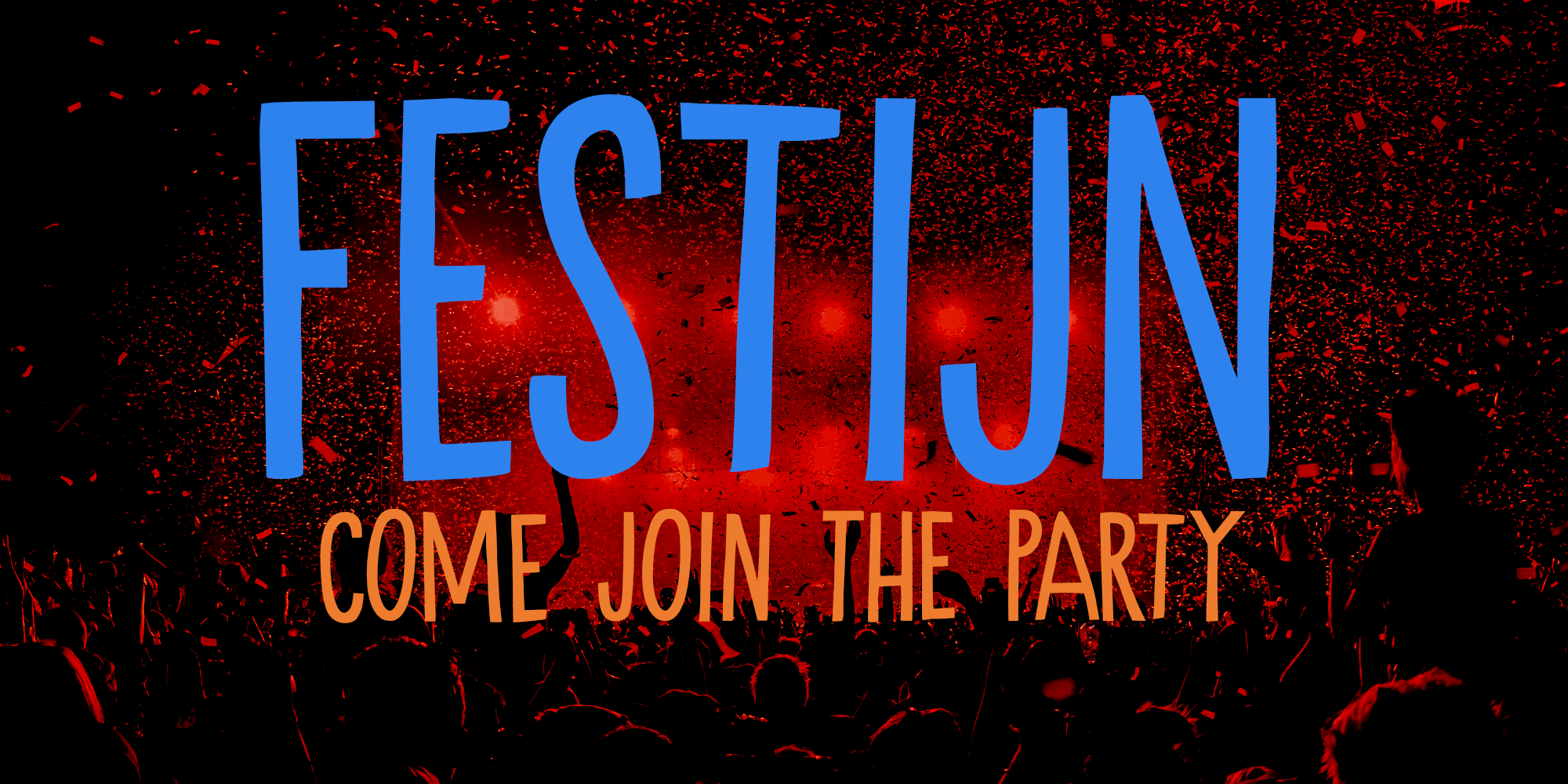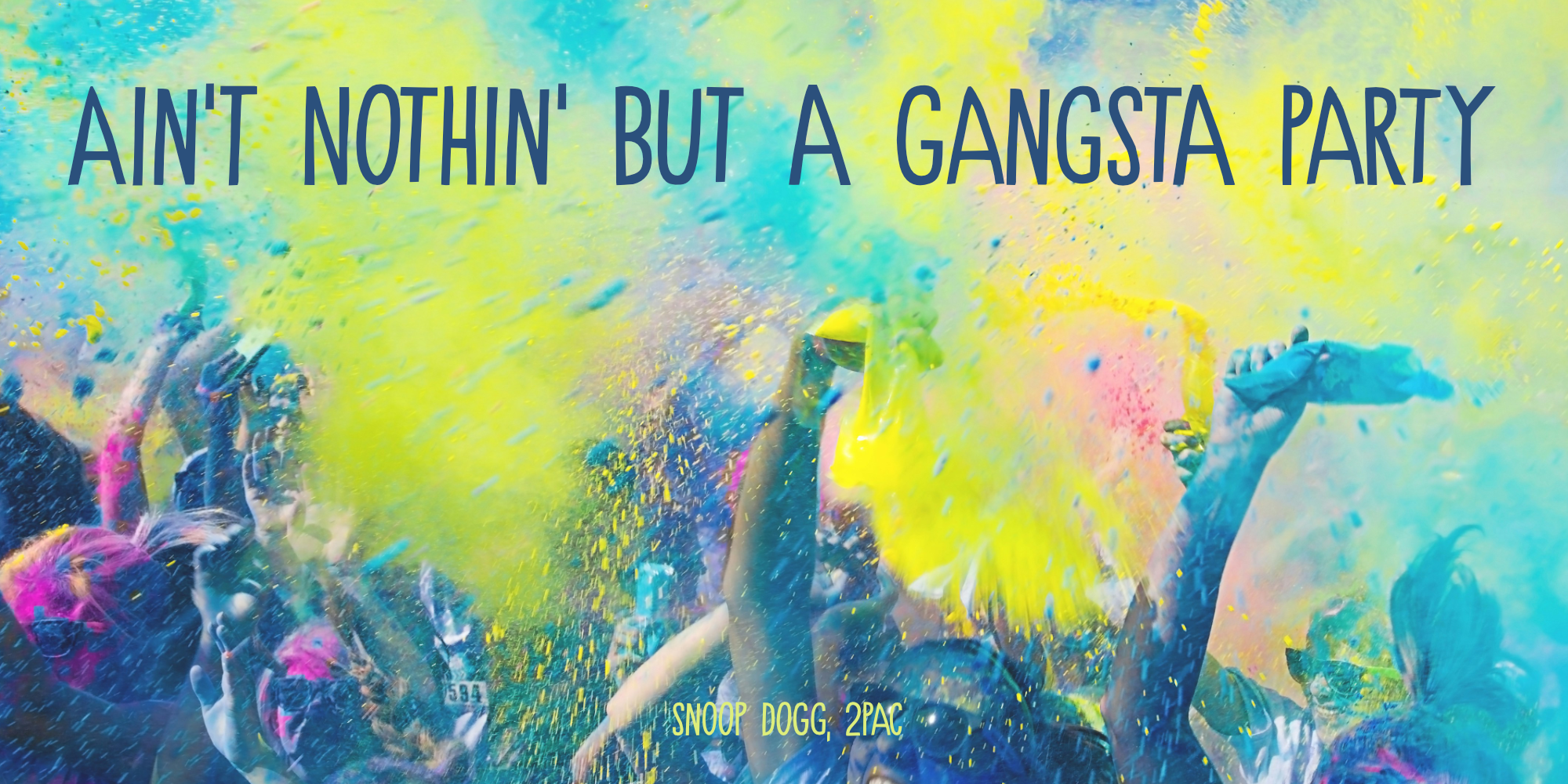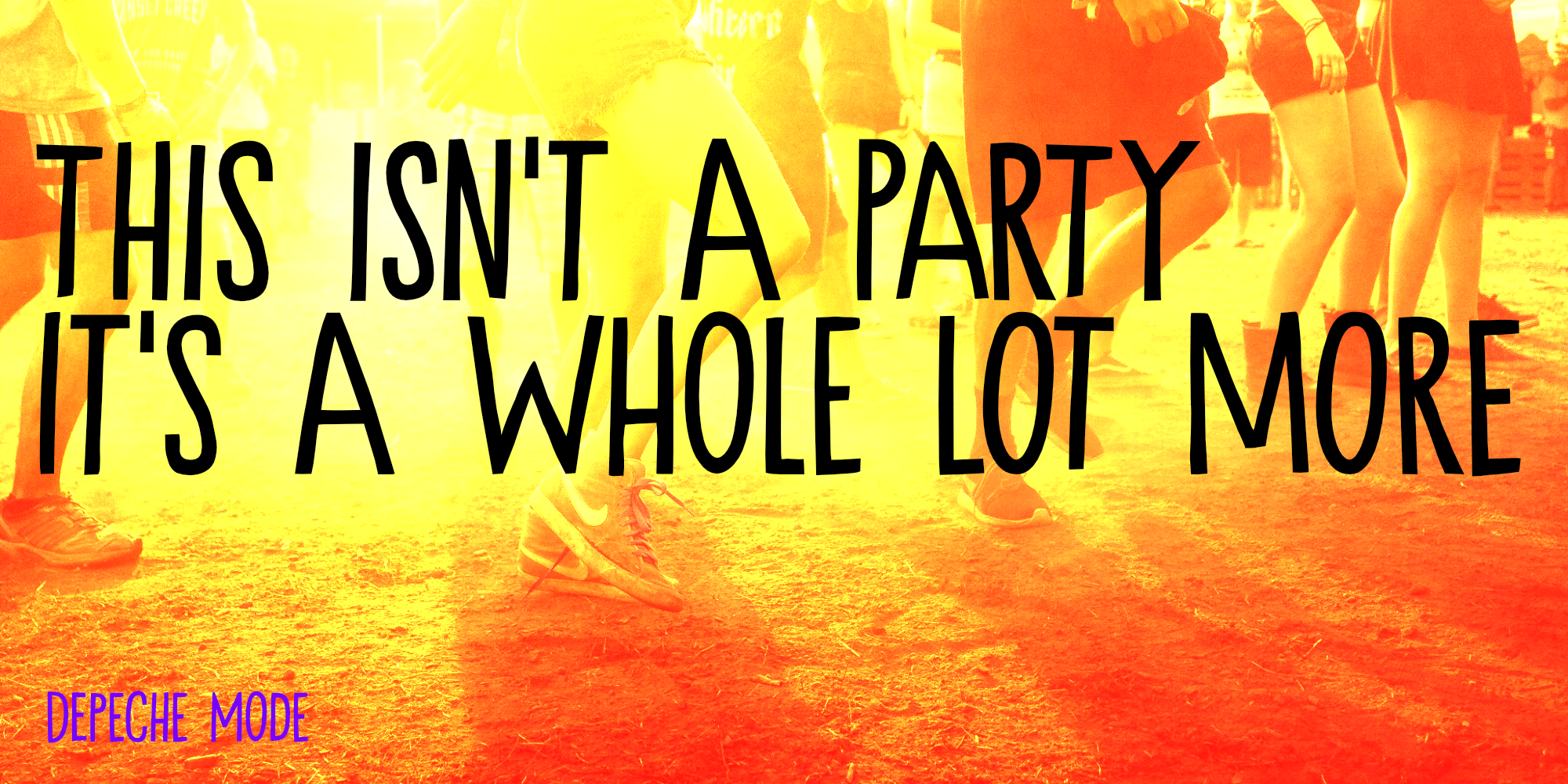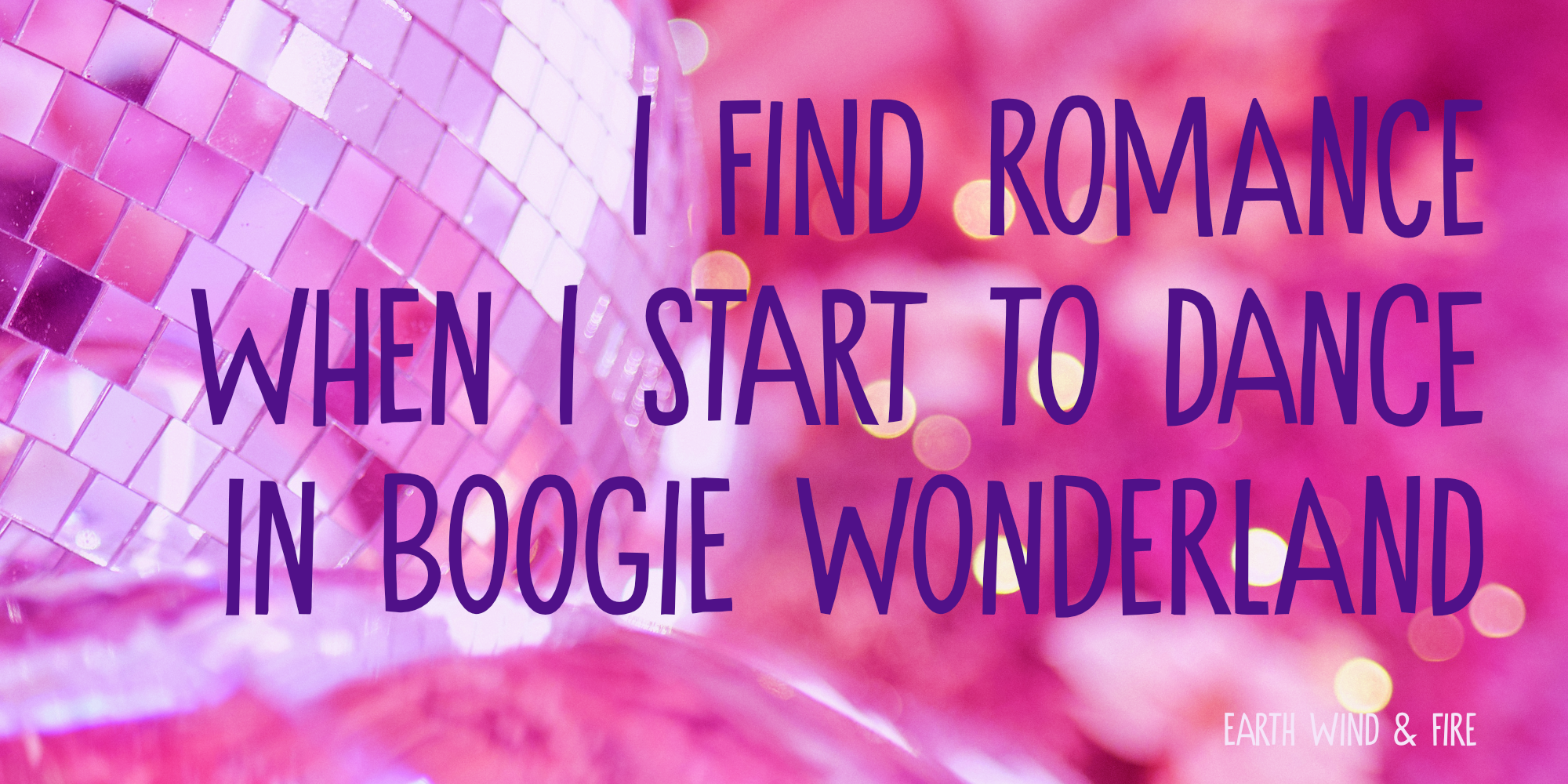
Festijn (2 fonts)
Festijn is a handmade, all caps, tall & thin font. Use it for your party posters, your food truck menus or just like it is - because you like it so much!